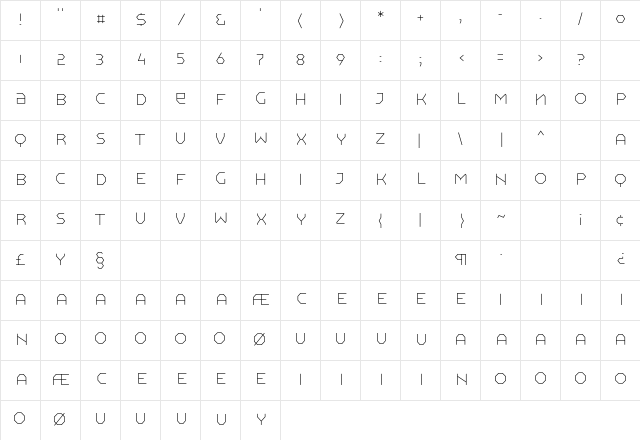
Pullman Layer Free Font
Pullman Layer
Style: Layer
Pullman Family
Pullman Layer
Design Context for Pullman
Pullman is a composed and adaptable typeface that performs quietly and consistently across a wide range of design contexts.